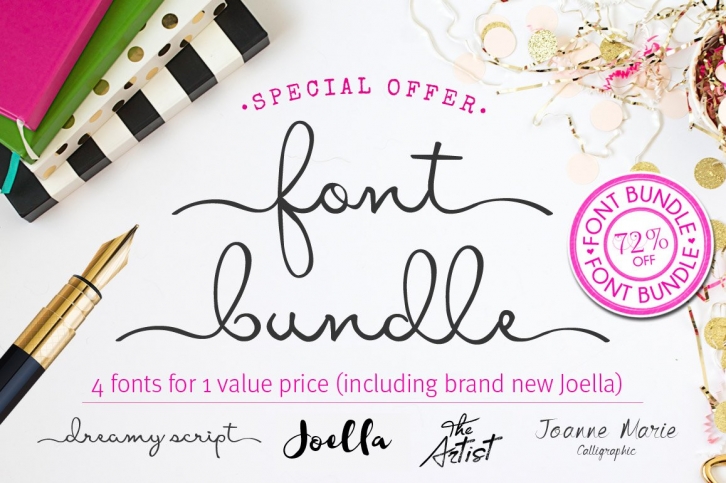
Here's a fantastic bundle of 4 fonts at brilliant value. Joella is a brand new brush script font with alternates and multilingual glyphs! The thickness of this font makes it great for use with fills such as gold, watercolor, glitter, etc.
The Artist - only available in this bundle.
This versatile bundle of fonts can be used for a wide range of projects, such as logo designs, party & wedding invitations, t-shirt designs, signs, magazine design, greetings cards, poster design and much more!